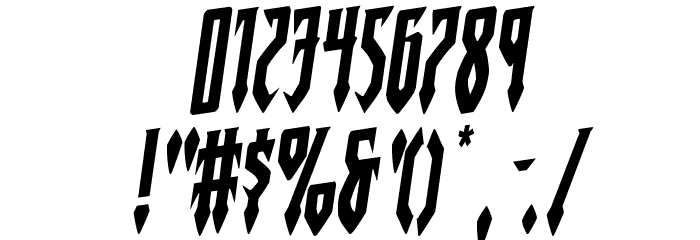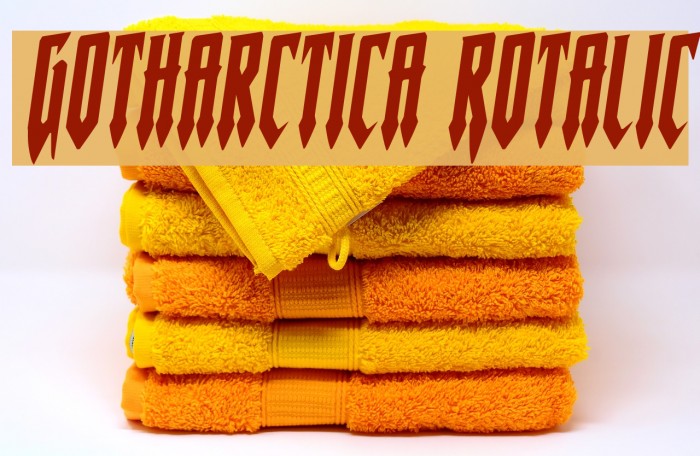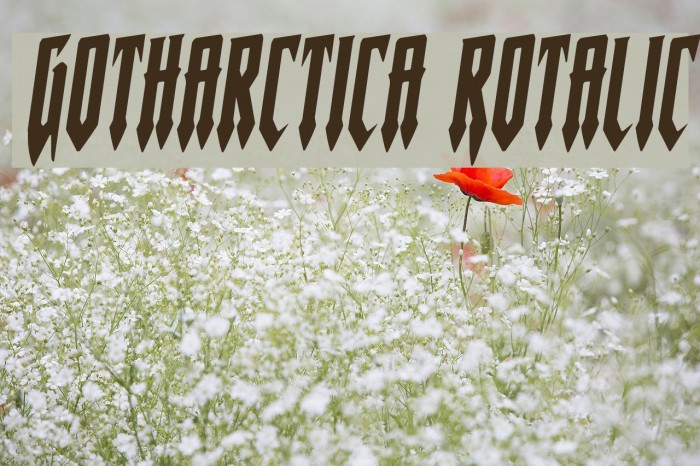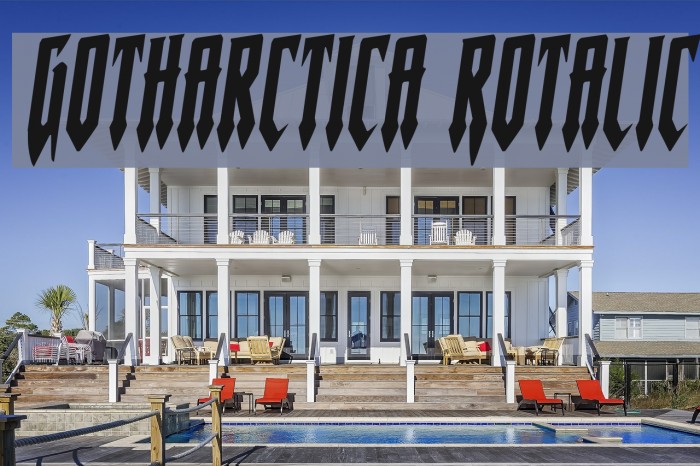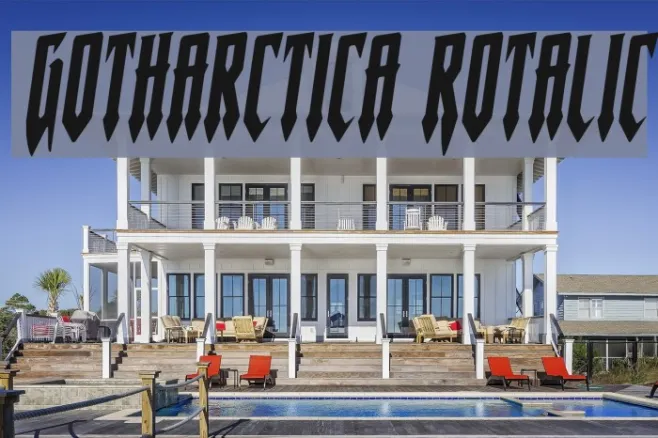
Gotharctica Rotalic Font
This font features a bold, angular design with a strong gothic influence. The characters are sharply defined with pointed edges and a distinct slant, giving it a dynamic and aggressive appearance. The uppercase and lowercase letters maintain a consistent style, with exaggerated serifs and a slightly condensed form. Numbers and special characters follow the same aesthetic, ensuring uniformity across all glyphs. The overall look is striking and impactful, making it suitable for projects that require a bold statement.
A bold, angular gothic font with a dynamic slant and sharp edges.
- Proposed Projects: Ideal for use in branding, posters, album covers, and any design that requires a bold, gothic aesthetic.